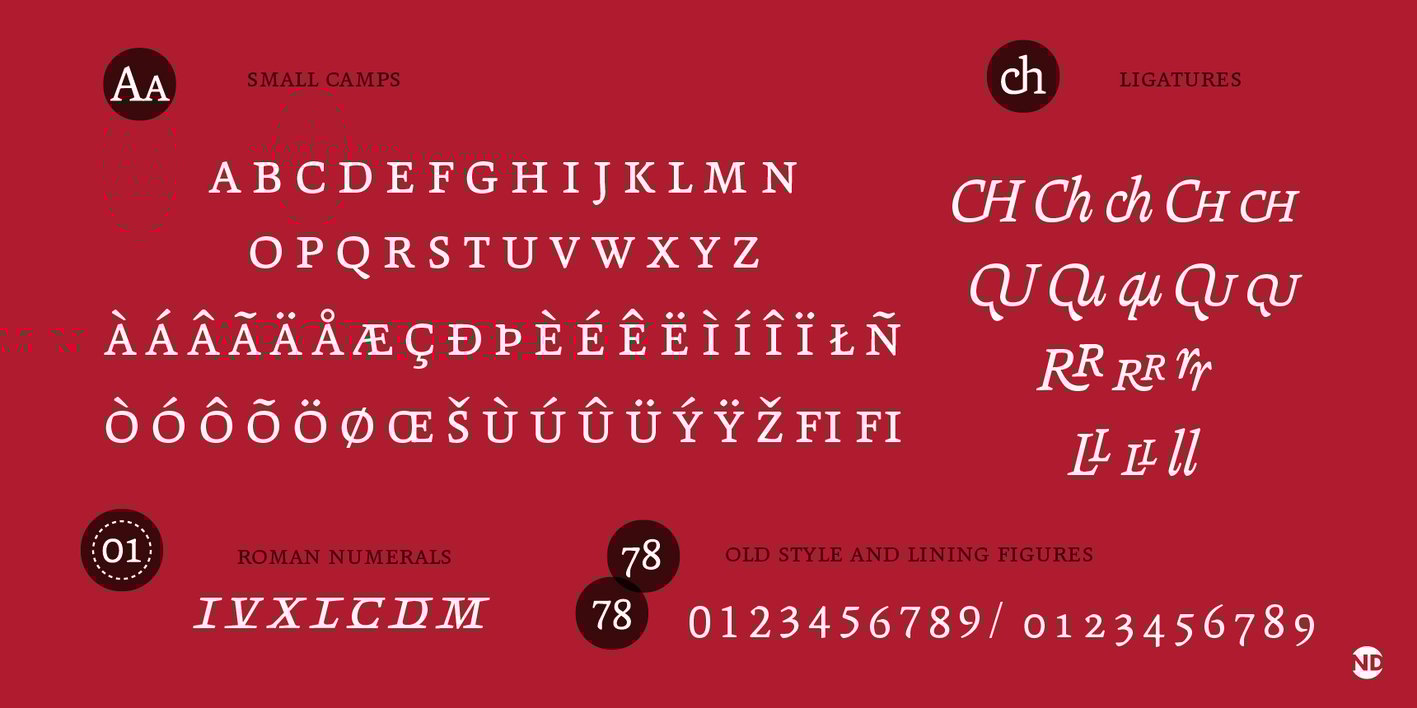
Andralis ND Font is perfect for contemporary corporate branding, modern tech company communications, sophisticated digital interfaces, progressive design studios, innovative startup materials, sleek product packaging, cutting-edge architecture firms, forward-thinking consulting services, premium technology solutions, and elegantly modern marketing communications.
Andralis ND Font is exciting because it embodies the sophisticated elegance and technological precision of contemporary design with its seamlessly crafted letterforms that seem engineered for the digital age while maintaining the humanistic warmth that makes advanced technology feel approachable and trustworthy. Its contemporarily refined character design reflects both the mathematical precision that drives modern innovation and the aesthetic sophistication that distinguishes truly exceptional design from merely functional solutions, making it perfect for brands establishing leadership in competitive technology markets.
Andralis ND Font family includes ultra-thin, thin, light, regular, medium, bold, and black weights, each with corresponding italic versions. The font family also features contemporary ornaments, tech-inspired ligatures, modern symbols, and sophisticated decorative elements that enhance its sleek aesthetic and professional versatility.
This contemporarily sophisticated typeface represents the perfect fusion of technological innovation and design excellence. Andralis ND Font Free Download allows designers to experience its modern potential before making a commercial commitment. The font's ability to convey both cutting-edge innovation and professional reliability makes it ideal for technology companies, design studios, and modern businesses targeting sophisticated audiences seeking premium solutions and innovative excellence.
Whether you're developing tech startup identities, creating modern corporate materials, or designing sophisticated digital communications, Andralis ND Font brings an unmistakable sense of contemporary elegance and technological sophistication to every project. Its seamlessly crafted character and modern heritage create powerful connections that resonate with forward-thinking clients and audiences seeking innovative solutions and design excellence.
The font's versatility excels in technology and corporate environments where sophistication and modern appeal are paramount. Its sleek character makes it particularly effective for tech companies, design agencies, consulting firms, and innovative businesses seeking to establish authoritative relationships with sophisticated clients and audiences who demand cutting-edge solutions and premium design quality.
For designers working on projects requiring genuine modern sophistication and technological appeal, Andralis ND Font provides an exceptional solution. Its contemporarily elegant presence and comprehensive modern elements offer the tools needed for creating truly sophisticated communications, while its technological precision ensures your designs capture the innovative excellence and design sophistication that defines the most successful contemporary businesses and technology leaders.